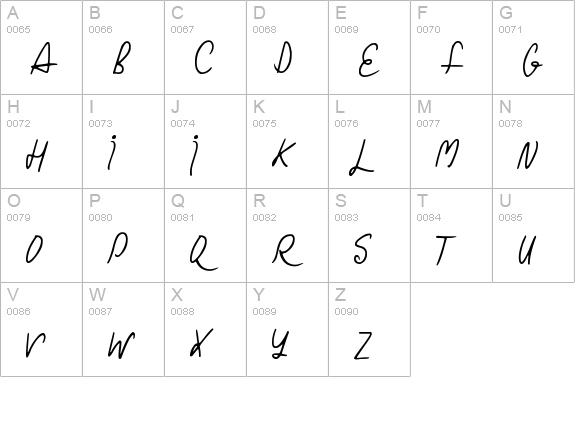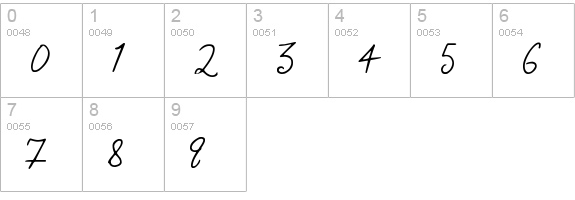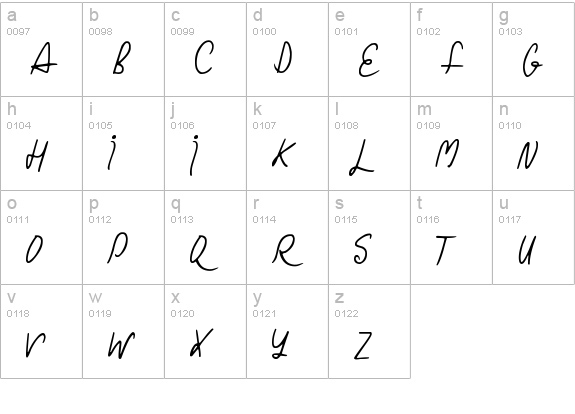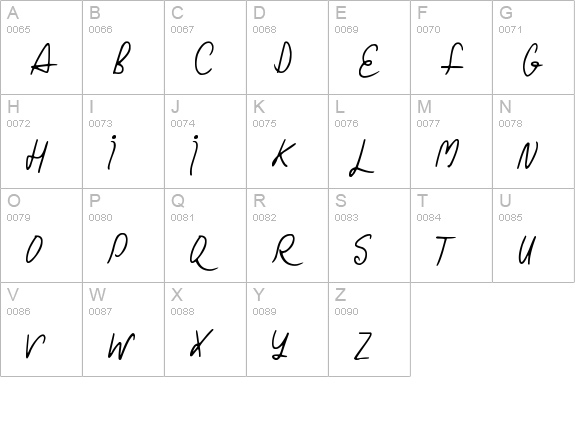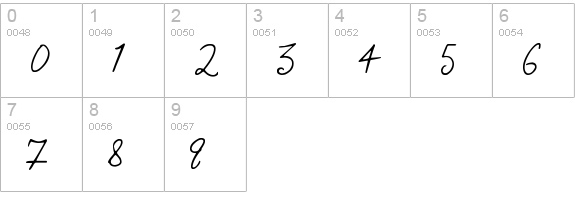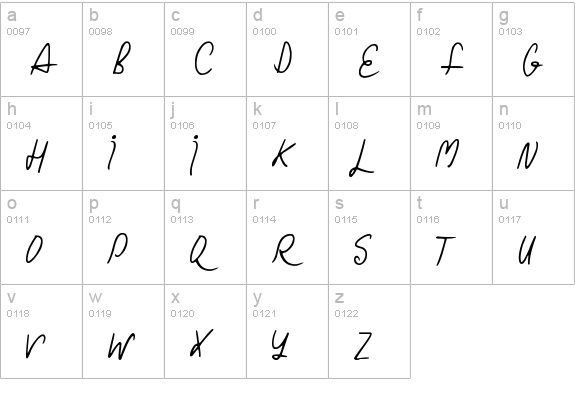
Christmas Curls Font Details
Christmas Curls is a free for personal use font in the Holiday > Christmas category, designed by Darrell Flood. It has been downloaded 174 times and is available for Windows, Mac and Linux.
Christmas Curls font is a whimsical and festive typeface designed to add a touch of holiday cheer to your projects. With its playful curls and elegant swashes, this font captures the spirit of Christmas in a unique and charming way. Whether you're creating greeting cards, invitations, or any other Christmas-themed design, Christmas Curls font is sure to bring a festive touch to your work.